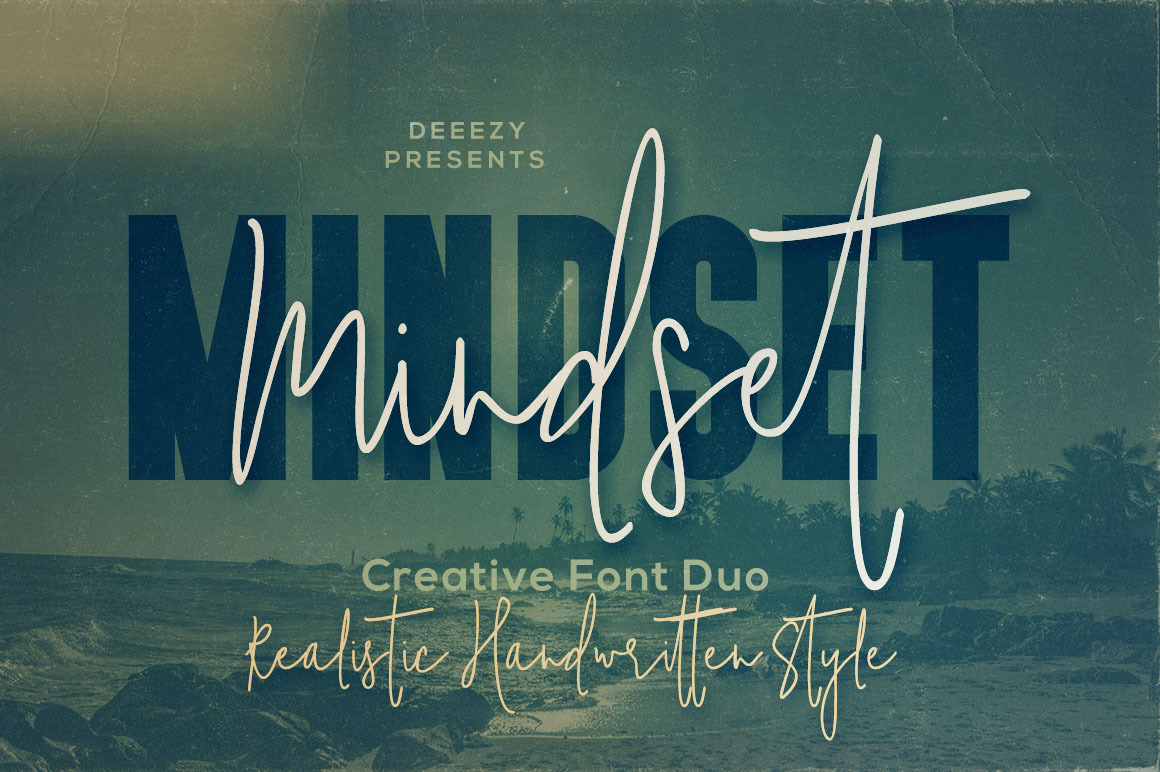
Mindset Font Duo
Crazy & handwritten or hand subscribe style script font + bold sans serif font for your new projects. Script font is with multi language support and lot of stylistic alternates. Enjoy ;)